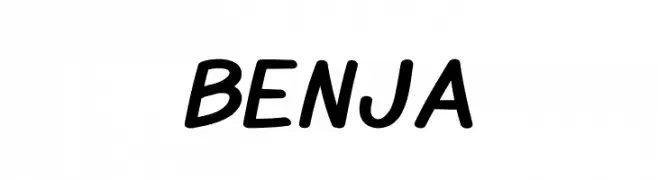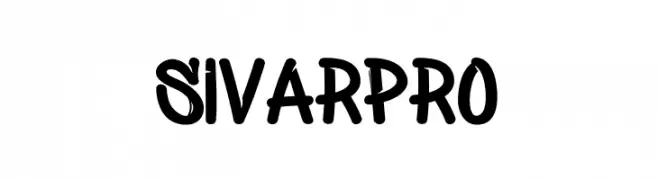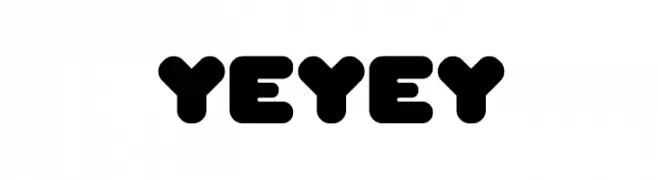
A modern, light sans-serif font with clean lines and a professional appearance.
A bold and italic font with strong, dynamic strokes and a slight slant.
A bold, geometric font with sharp, angular characters.
A bold, graffiti-inspired font with dynamic, expressive characters.
A bold, playful, hand-drawn font with a friendly and approachable style.
A Morse code-inspired decorative font using dots and dashes.
A futuristic, geometric font with sharp angles and a bold, digital aesthetic.
A playful, handwritten-style font with bold, rounded characters.
A modern, condensed sans-serif font with tall, narrow characters and uniform stroke width.
A bold, rounded font with a playful and modern aesthetic.